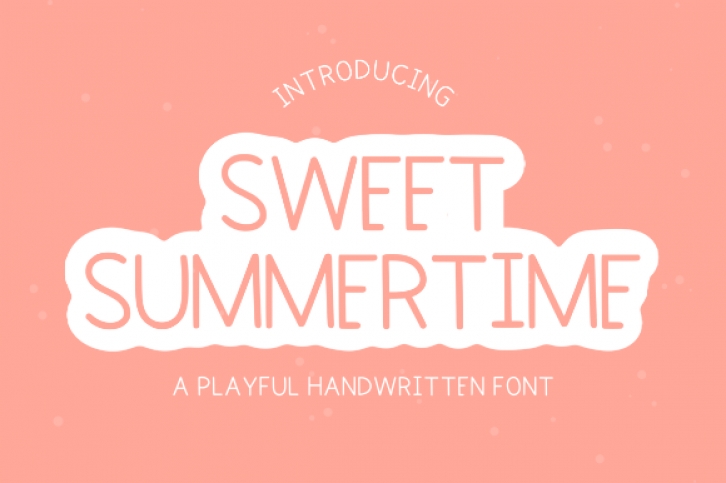
Sweet Summertime is a minimal and neat handwritten font. It can easily be matched to an incredibly large set of projects, so add it to your creative ideas and notice how it makes them stand out!